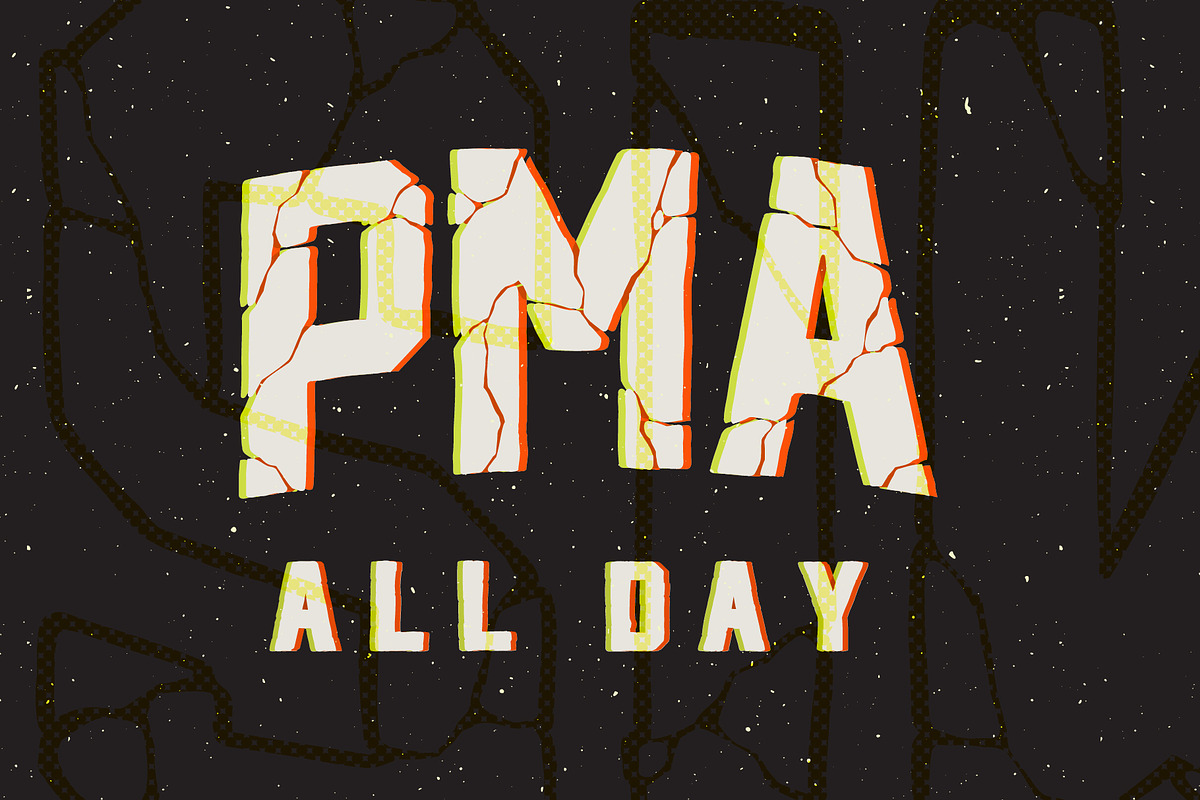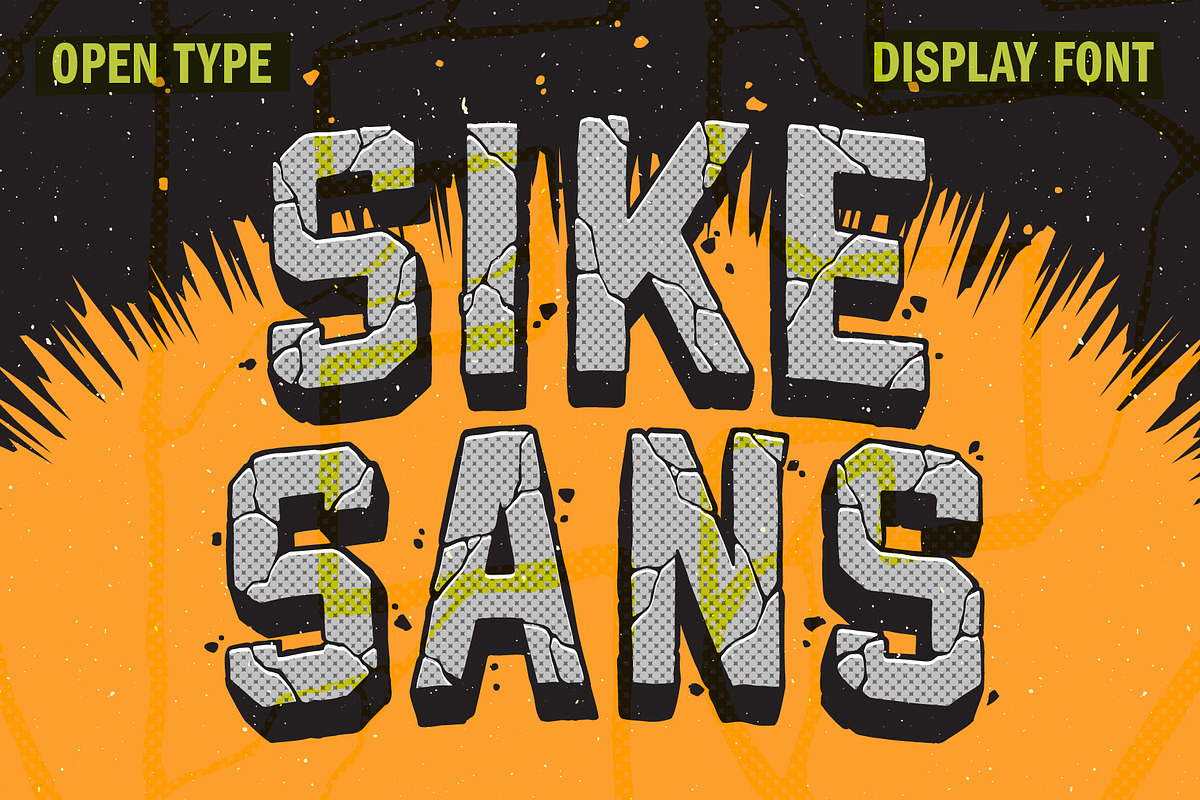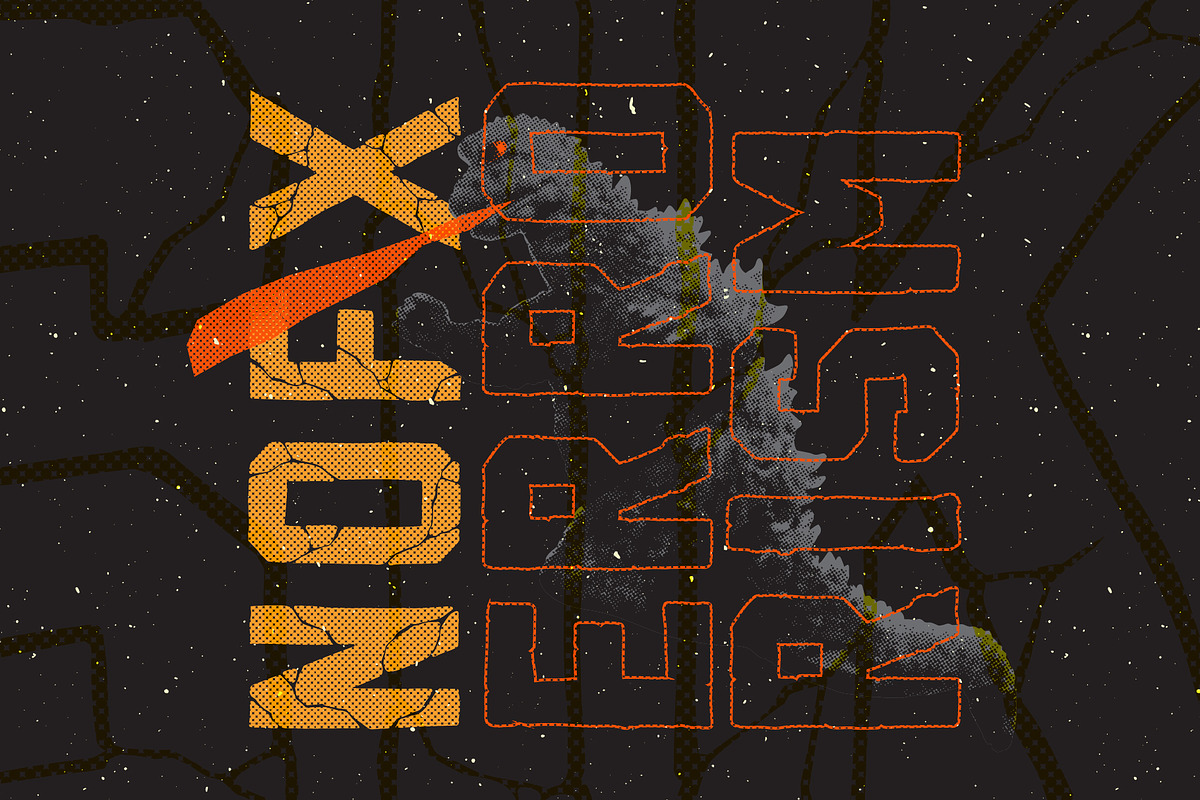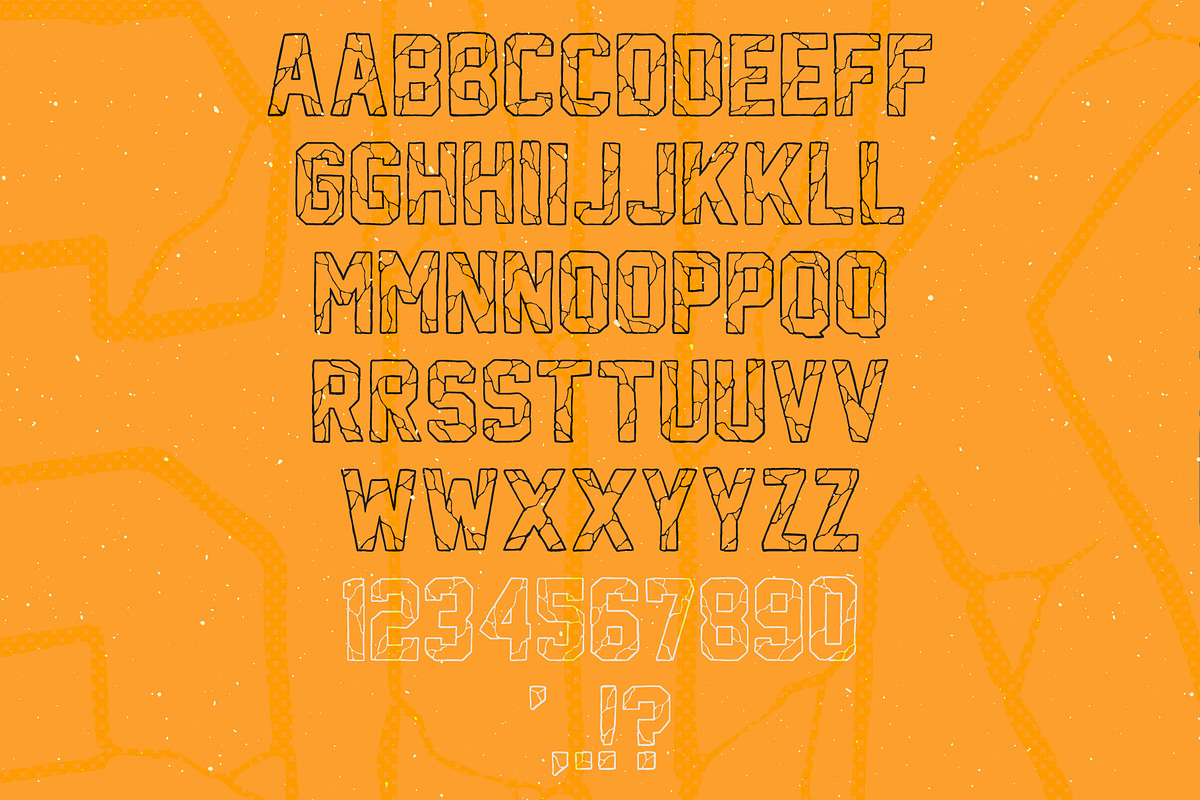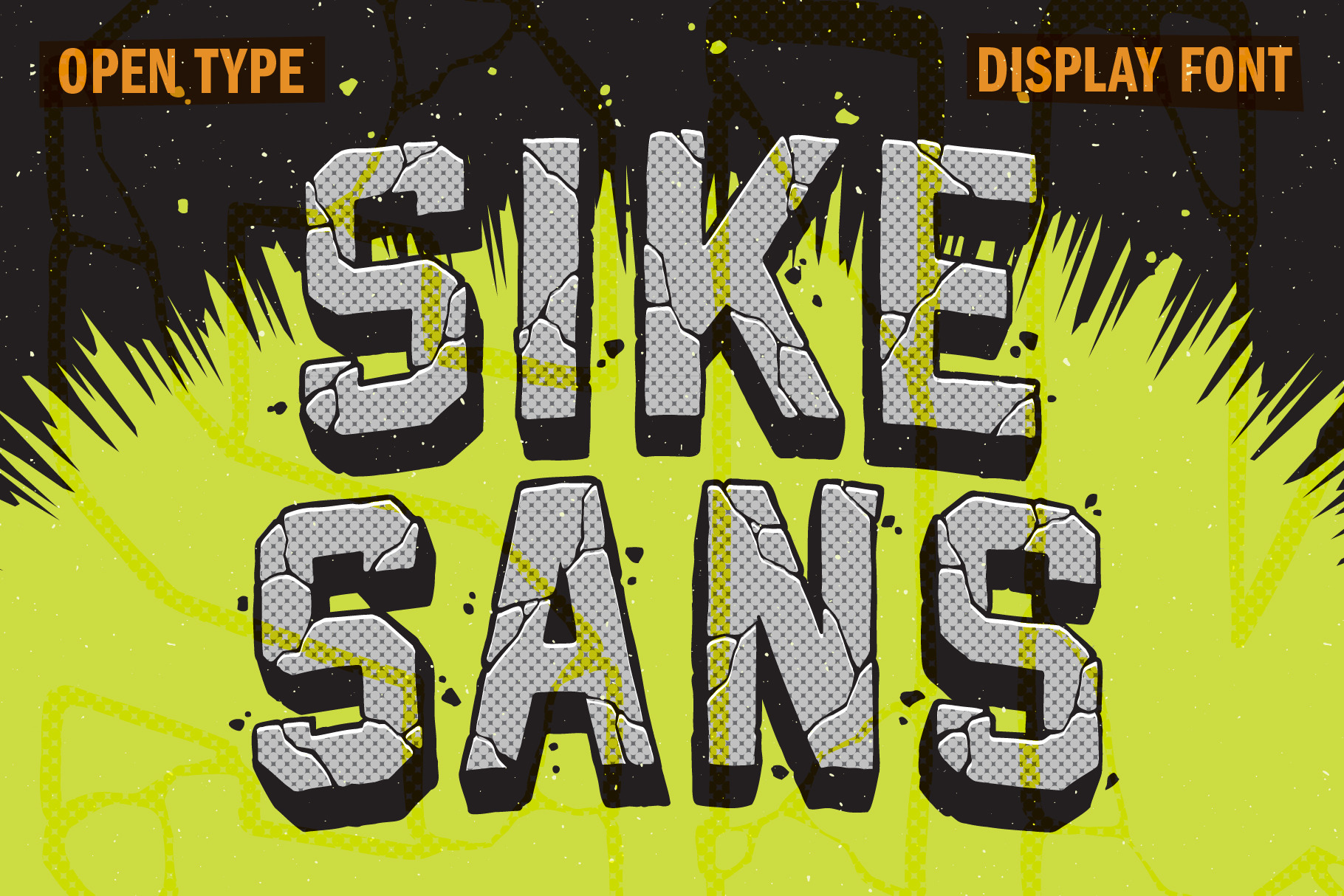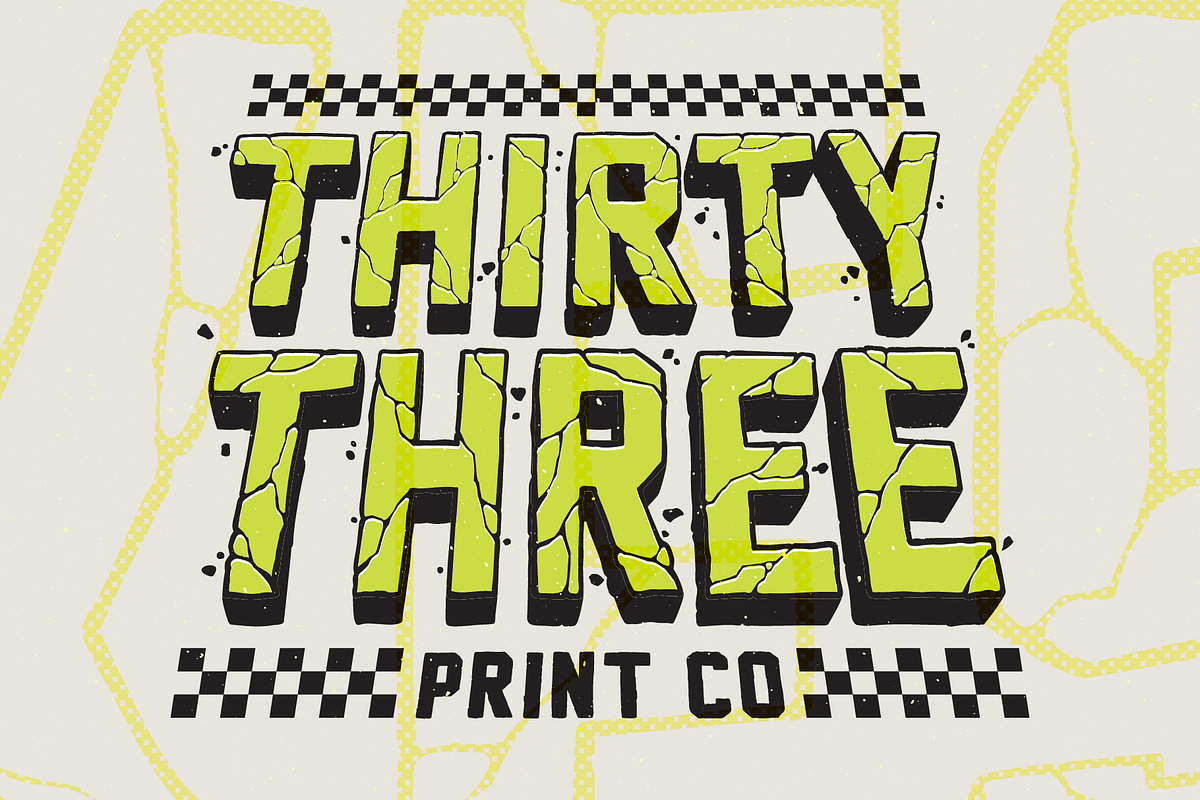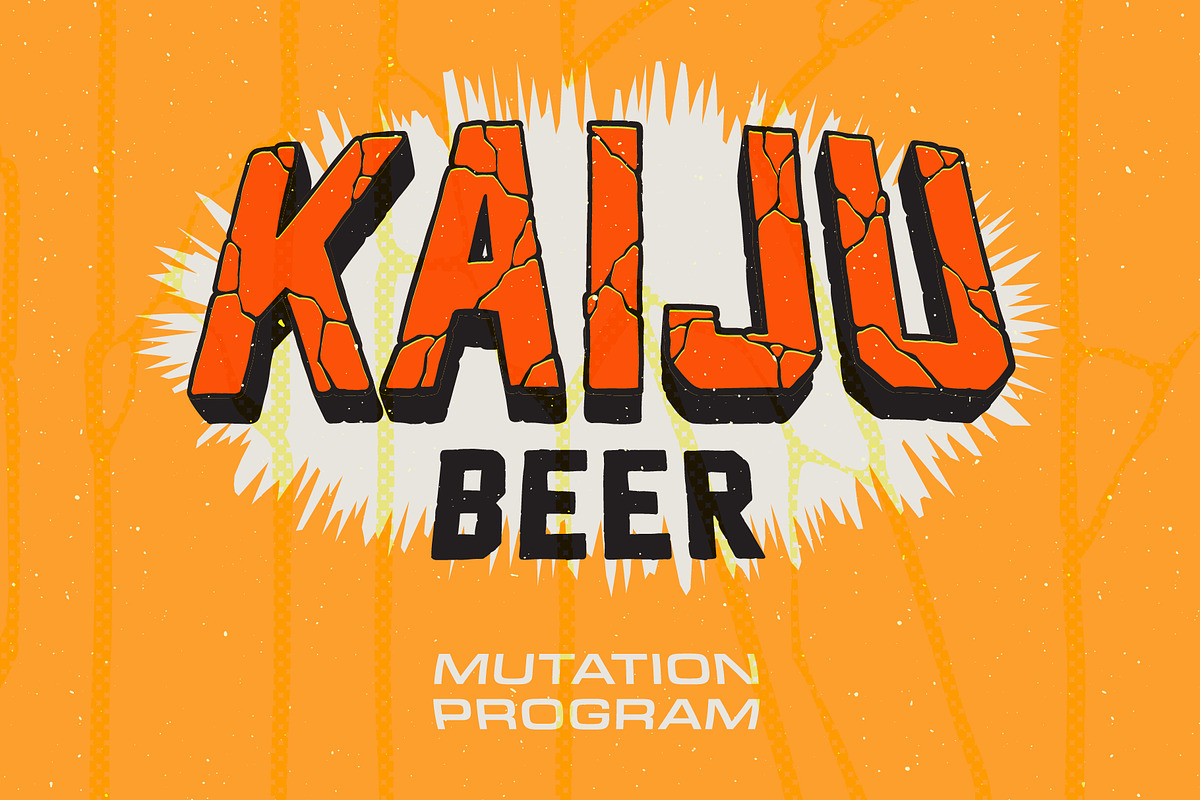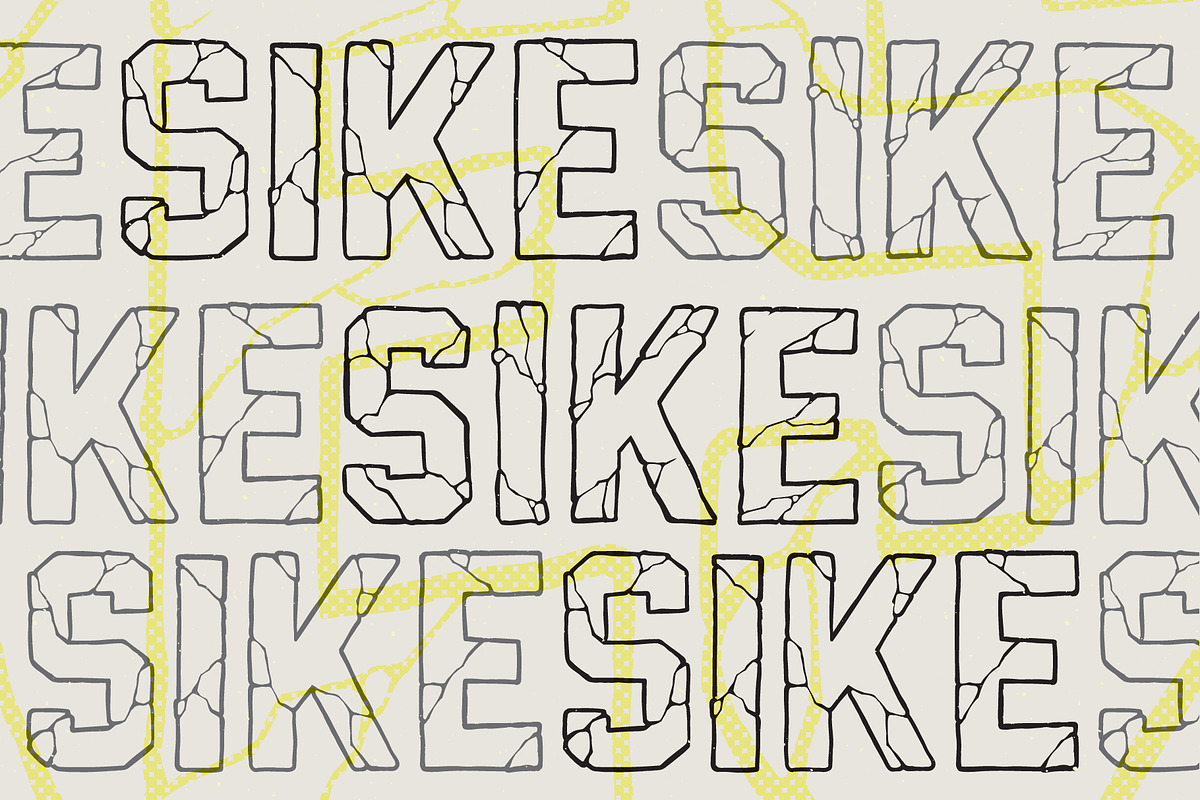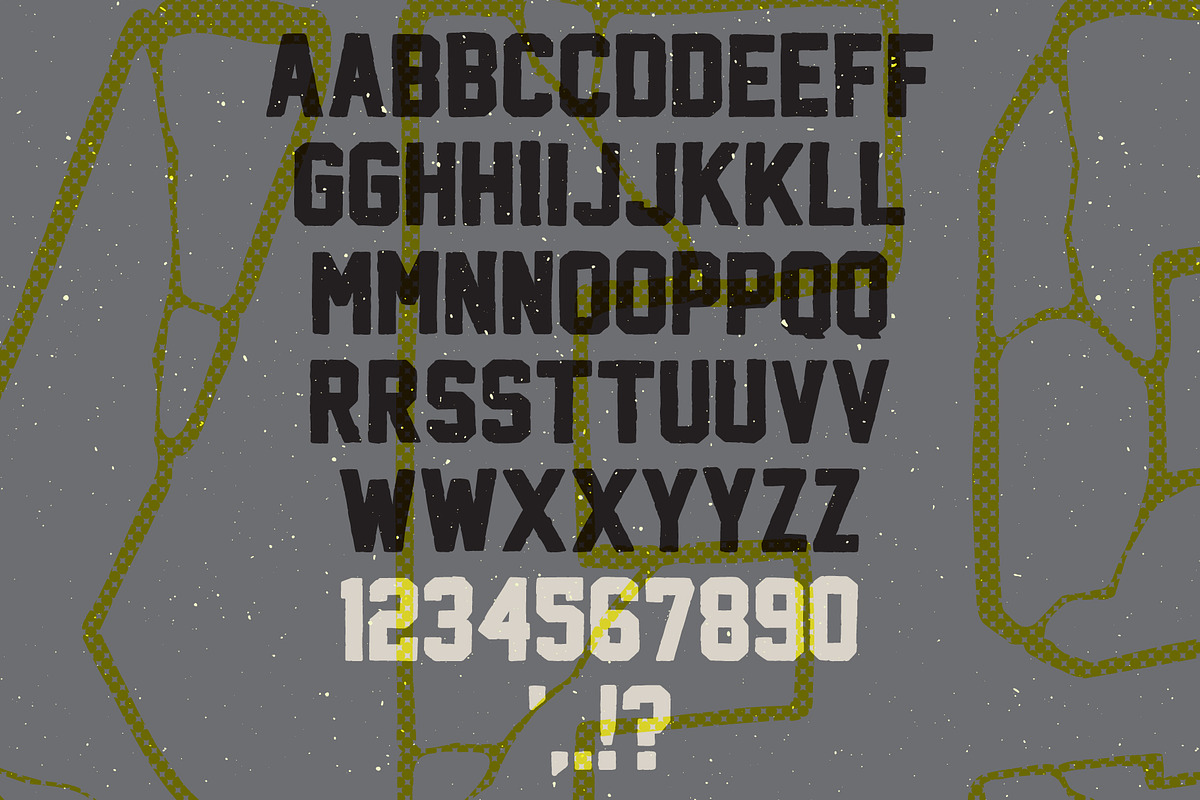
Sike Sans Font
A display font inspired by monster movies and mosh pits.
Uppercase Character Set A-Z
Alternate Characters
Numerals & Simple Punctuation
Outline and Fill font included